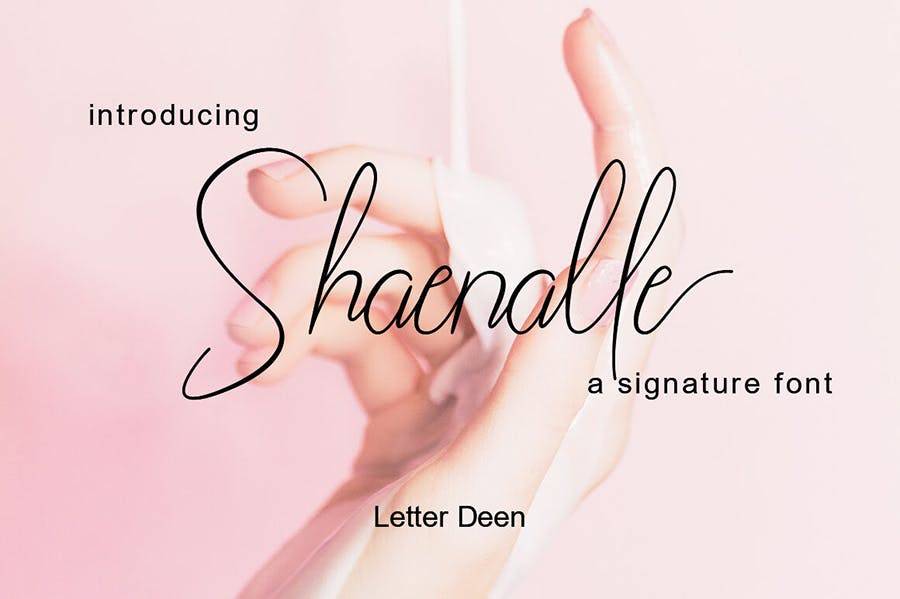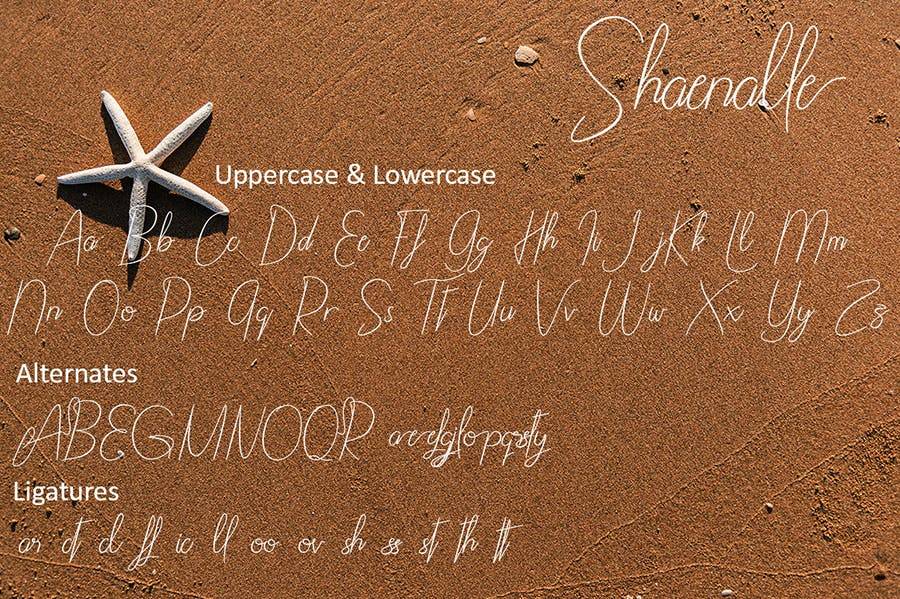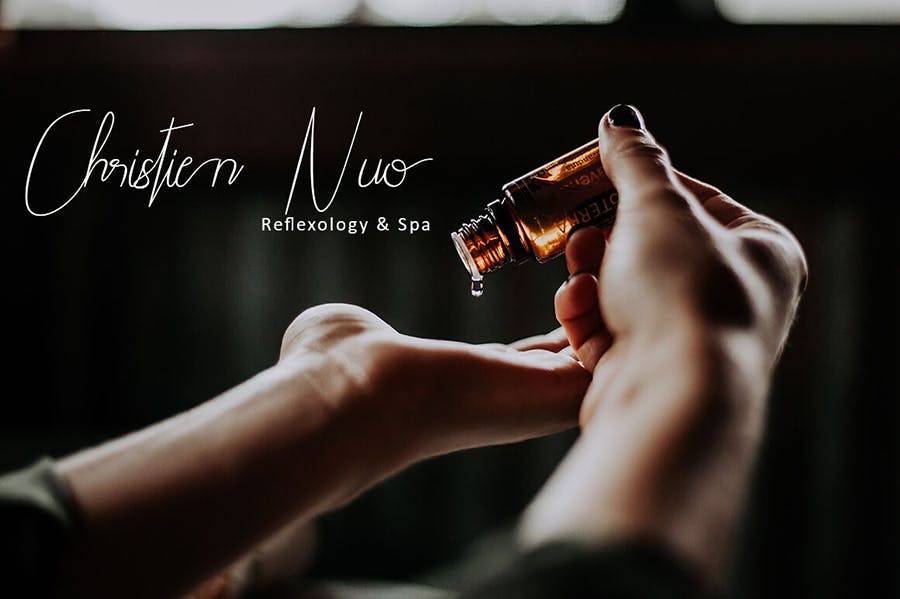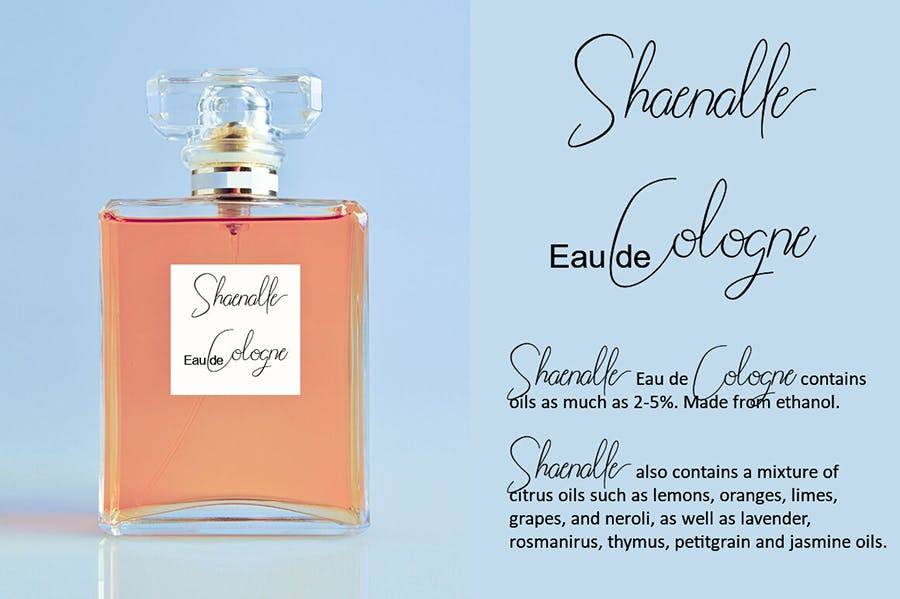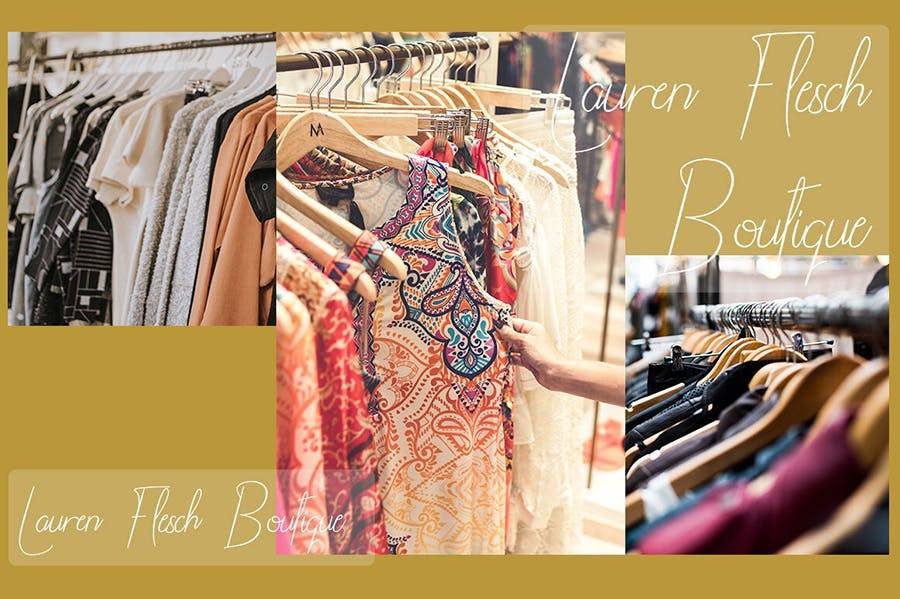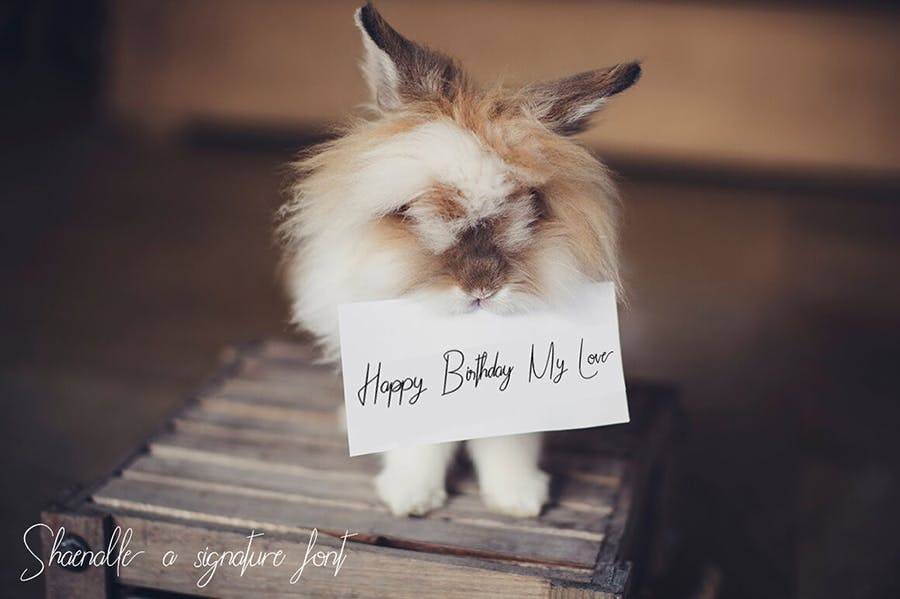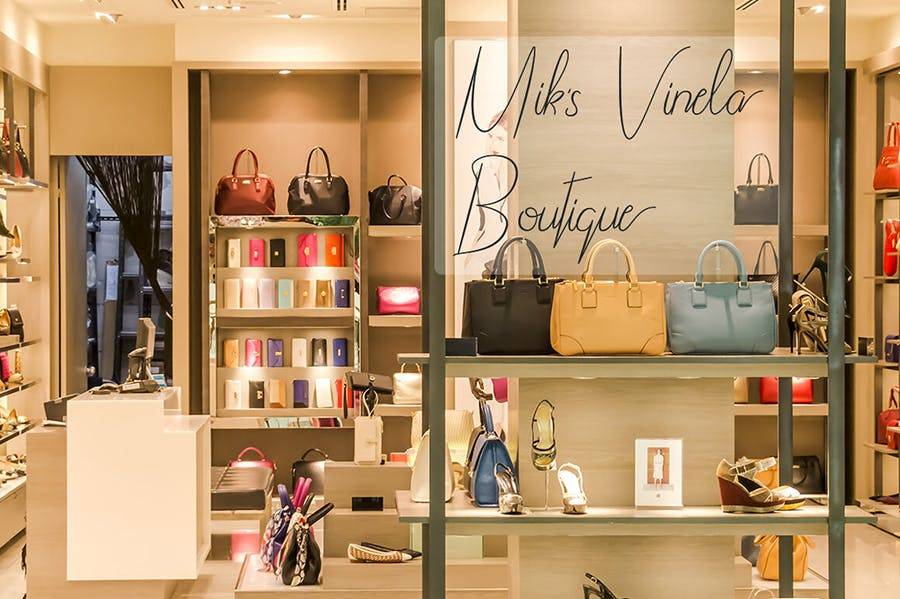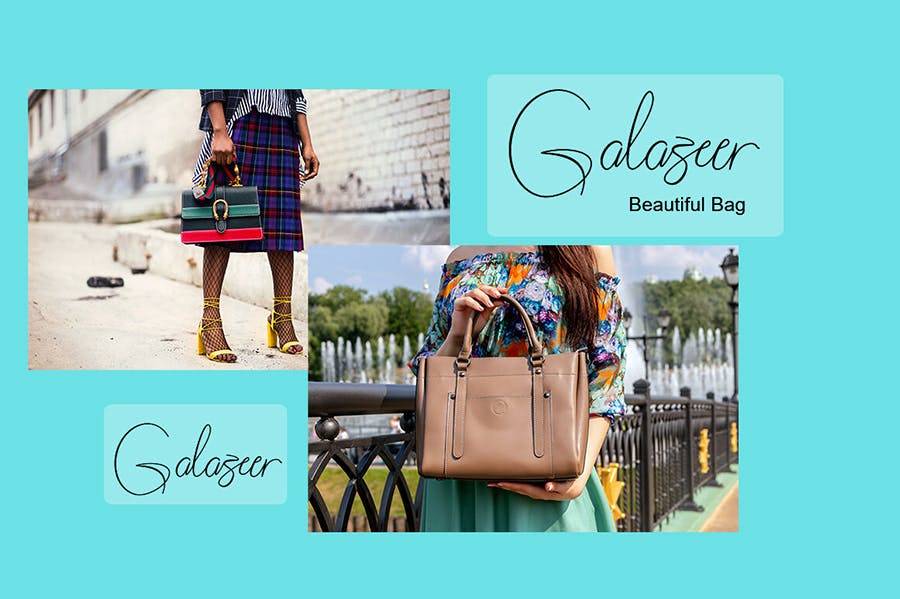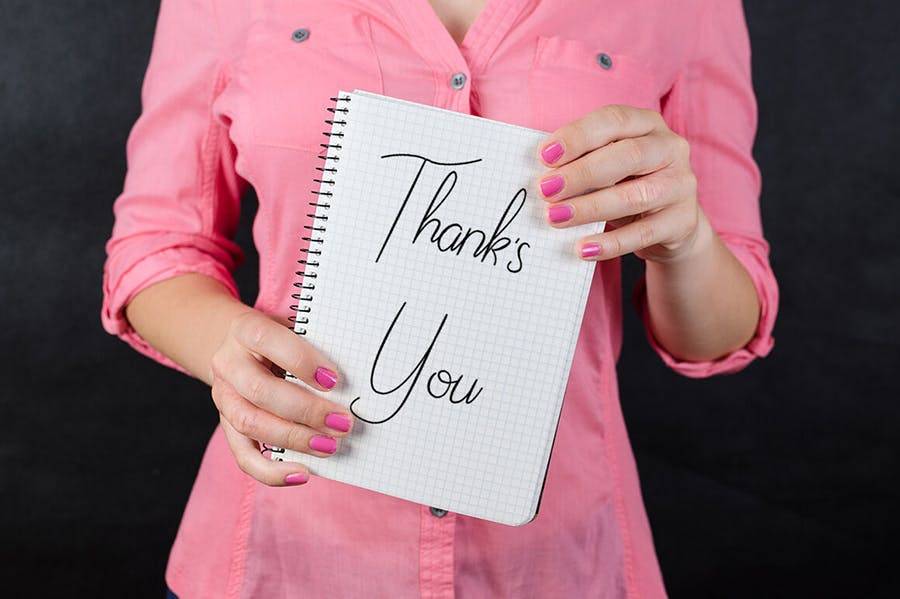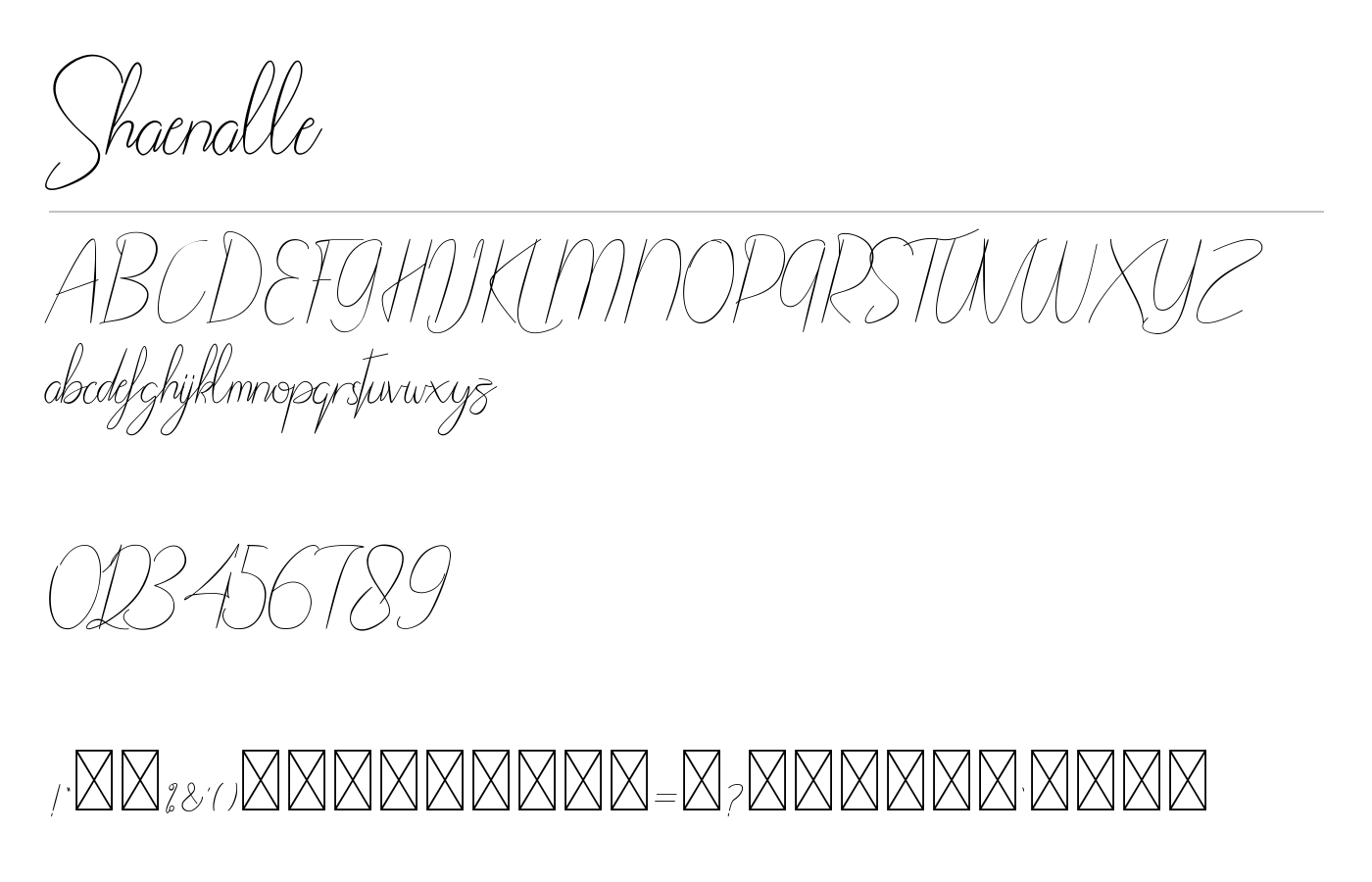
Shaenalle Script is an elegant, thin, and delicate handwritten font with tall, flowing letterforms that convey a sense of sophistication and grace. Its fine strokes and fluid curves make it perfect for stylish branding, invitations, and feminine design projects where a refined, modern script look is desired. This font works beautifully in logos and headlines that need a personal, artistic touch without feeling too bold or heavy.
Shaenalle Script Font Demo
About Shaenalle Script Font Demo